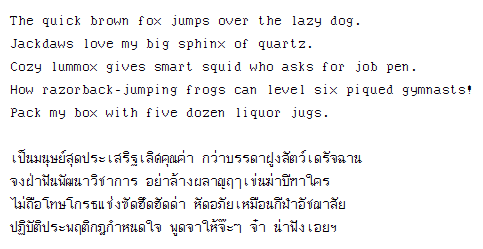
This is a pixel font inspired by CU Word, an antiquated Thai word processor, which has its own a few typefaces. This font is monospaced (like Courier); the appropriate size is 10 pt (points) that is suitable for screen paragraph or coding editor. This font also includes fully-usable Thai script and some other Unicode characters. You can browse in a charmap program. Includes 2 styles: regular and bold. |